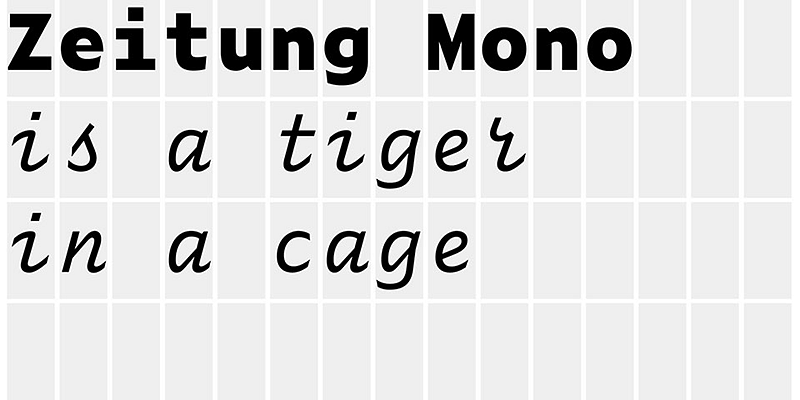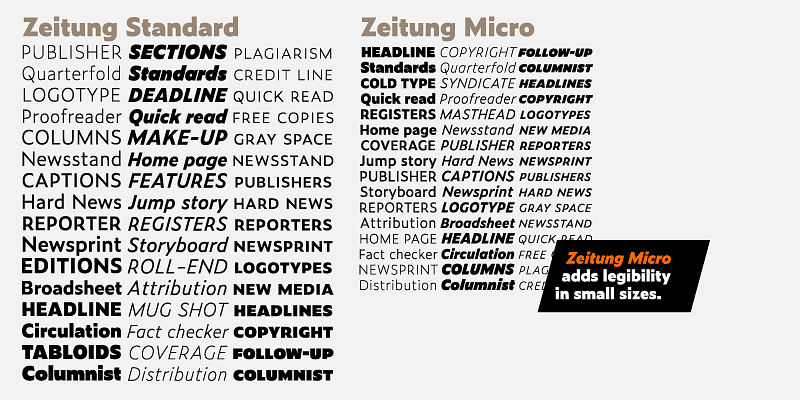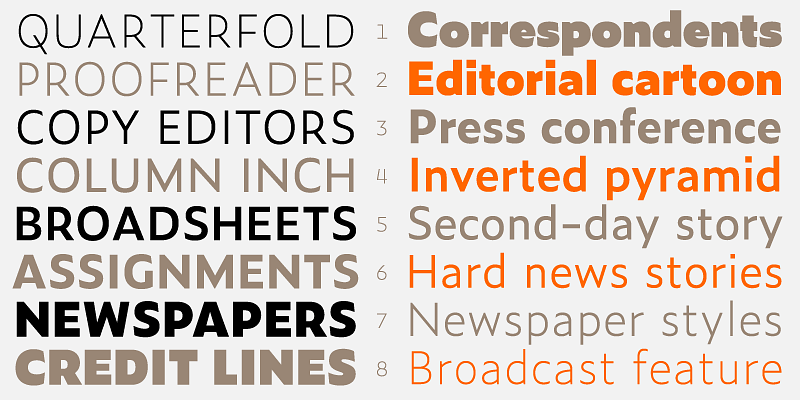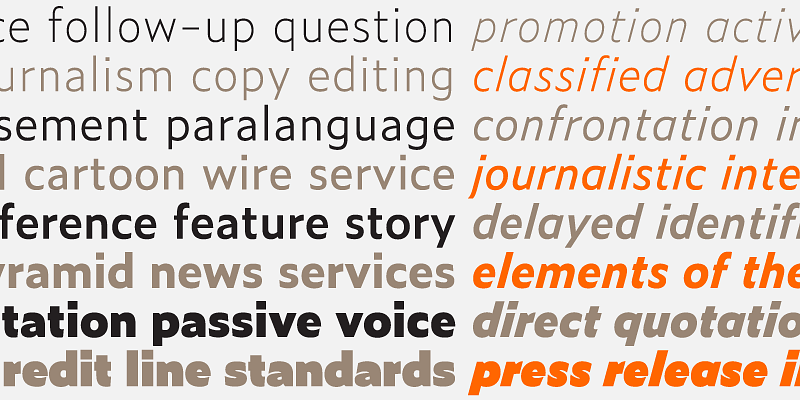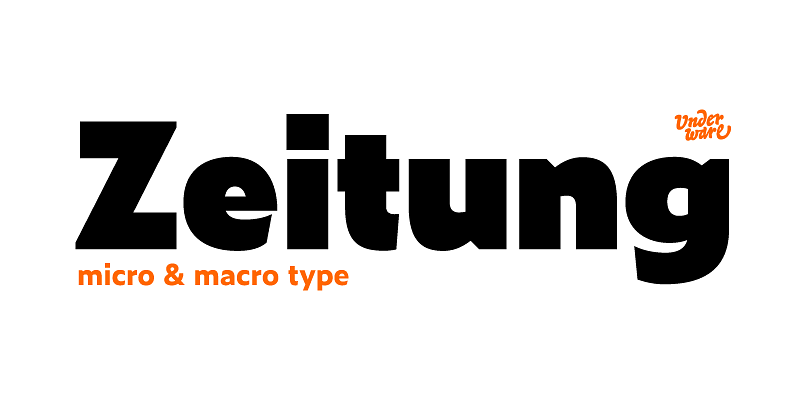
Zeitung is a sans serif family, made according to contemporary standards: 8 weights, italics, small caps, optical sizes, grades, 5 number styles & a monospaced version. Zeitung never lets you down.